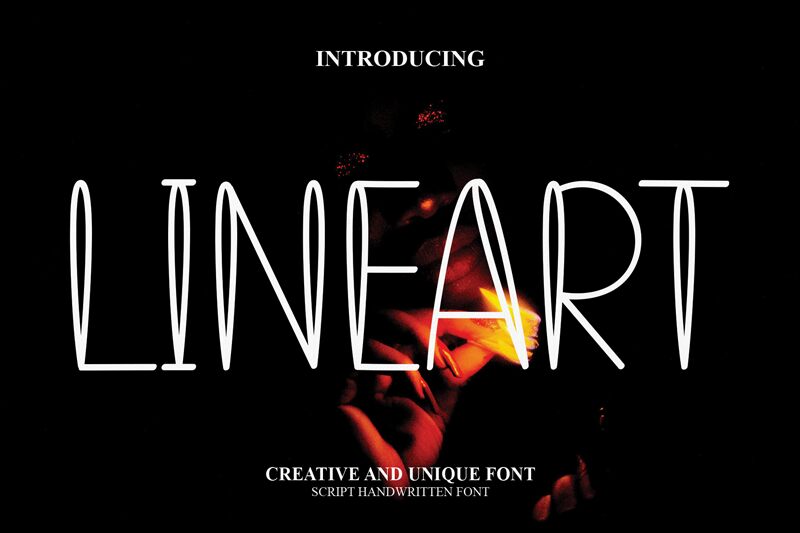
Lineart
Lineart is a stunning semi-light handwritten outlined font designed by Belina Studio. Its unique semi-condensed width makes it an ideal choice for various projects, including book covers, social media graphics, and branding materials. The playful and artistic nature of this font typeface makes it perfect for designing posters, greeting cards, and invitations. With its attributes like clear legibility and readability, Lineart is a must-have font in your toolkit for creating impressive designs that effortlessly stand out from the crowd. Unleash your creativity with this elegant yet fun-filled font!
the latest style letters are perfect for wall displays, wedding invitations, social media post logos, advertisements, product packaging, product designs, labels, photography, watermarks, invitations, stationery, and any project that requires taste handwriting.